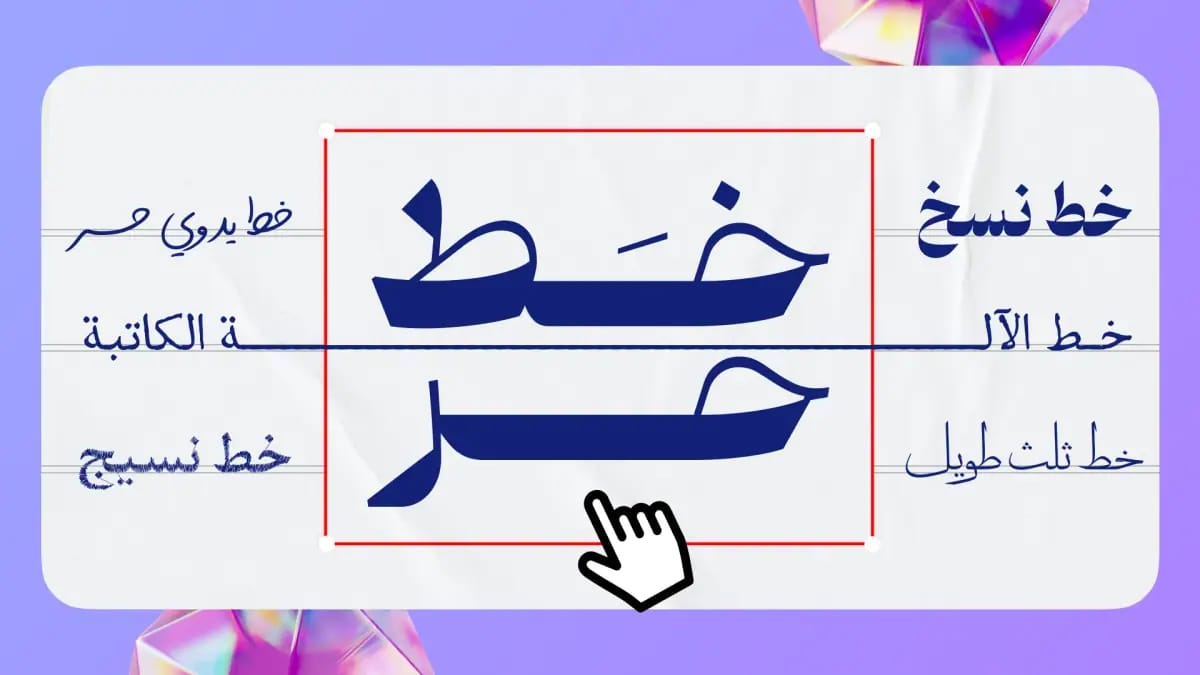
Arabic Font Library
455+ Arabic fonts, Naskh, Kufi, Diwani, decorative and handwriting, with a live preview on your design.
Andalusi's library holds more than 455 Arabic fonts across 17 categories, from classic Naskh, Kufi, Diwani, Ruqʿah and Thuluth to luxe decorative and modern handwriting styles. Try any font on your design with a live preview, adjust the kashida, diacritics and letter spacing, or load your own external fonts in TTF and OTF, all inside the app on iOS and Android.
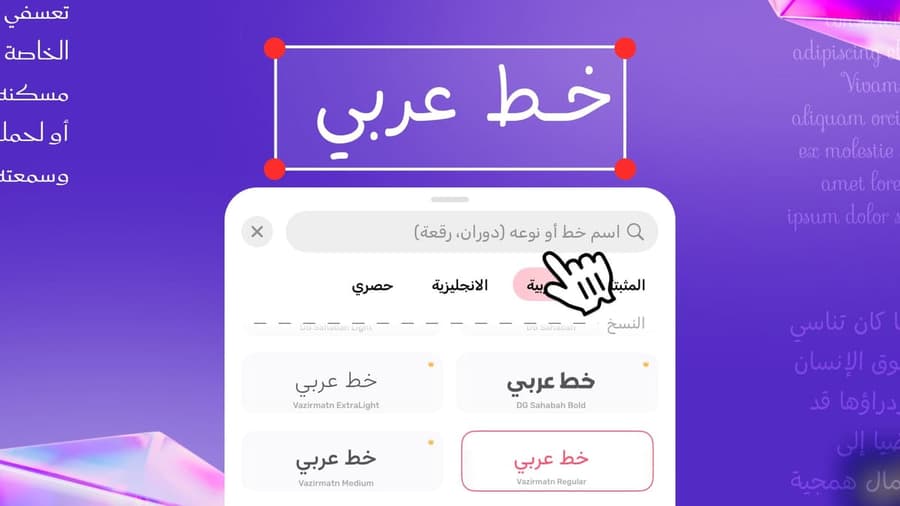
Choosing an Arabic font for text from the font library in the Andalusi app
Andalusi's library holds more than 455 Arabic fonts across 17 categories, from classic Naskh, Kufi, Diwani, Ruqʿah and Thuluth to luxe decorative and modern handwriting styles. Try any font on your design with a live preview, adjust the kashida, diacritics and letter spacing, or load your own external fonts in TTF and OTF, all inside the app on iOS and Android.
Exclusive Arabic fonts in Andalusi, Naseej, Naskh, Thuluth and handwriting samples
From Naskh to handwriting, exclusive Arabic fonts
The library covers every kind of Arabic font, Naskh, Thuluth, Kufi, Diwani and handwriting, plus exclusive fonts like Naseej and a typewriter face you won't find in any other app.
The Arabic font list in the Andalusi app with quote designs in various fonts
Luxe, decorative fonts for every platform
Modern luxe and decorative fonts for Instagram and TikTok posts and your brand identity, browse by category or search by font name and swap in one tap.
Ready templates in distinctive Arabic fonts
From the “featured fonts” category in Andalusi's library, quotes and phrases set in luxe, expressive Arabic fonts. Pick a template, swap the text for whatever you like, and the font and layout stay in place.
A quote template set in a distinctive Arabic font in Andalusi
A design in an expressive Arabic font on an orange background in Andalusi
A template in a playful Arabic font on a pink background in Andalusi
A template in a bold Arabic font in vivid colours in Andalusi
A template in a classic Arabic font in Andalusi
How to write your name in an Arabic font, step by step
A hands-on example: add your name or text, browse the Arabic font library, and try fonts with a live preview until you find the right one, all in about a minute inside Andalusi.
• 455+ Arabic fonts in clear categories
• Preview the font on your design directly
• Fine-tune kashida and diacritics
Social media posts
Set your phrases in a distinctive Arabic font for Instagram, TikTok and X posts and stories.
Brand identity and logos
Pick a luxe Thuluth or Diwani font that gives your brand an authentic Arabic character.
Invitations and occasions
Add an elegant decorative font to wedding cards, greetings and formal occasions.
Add a text layer to your design
Open any design in Andalusi and tap the text icon to add a text layer.
Browse the font library
Search by font name or browse the categories: Naskh, Kufi, Diwani, decorative, handwriting, each with a live preview.
Adjust size, colour and spacing
Tune the font size, colour, letter spacing, kashida and diacritics until you get the perfect look.
How many Arabic fonts are in Andalusi?
What types of Arabic fonts are available in the app?
The library covers the main Arabic script styles, Naskh, Kufi, Diwani, Ruqʿah and Thuluth, plus luxe decorative and modern handwriting fonts, all categorised in the app so you reach them quickly.